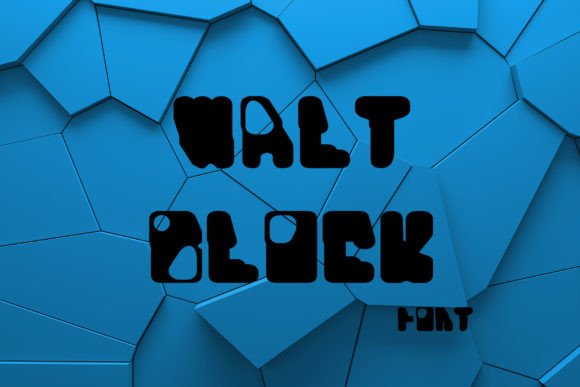
Walt Block: The Bold and Friendly Font for Modern Design
In a world where visual communication is more important than ever, the right font can make all the difference. Walt Block is a modern and cool display font that stands out for its strong, assertive presence while still maintaining a touch of friendliness. This unique combination makes it ideal for projects that require bold and daring typography without sacrificing approachability.
As design trends continue to evolve, the demand for fonts that can capture attention while remaining readable has never been higher. Walt Block meets this need by offering a versatile typeface that works well in both digital and print formats. Whether you're designing a logo, creating a website, or developing marketing materials, Walt Block provides a powerful visual identity that resonates with modern audiences.
Why Walt Block Matters in Today’s Design Landscape
The rise of digital media and social platforms has changed how people consume information. Visuals now play a central role in communication, and typography is a key component of that. With so many fonts available, it's easy to get lost in the sea of options. Walt Block offers a refreshing alternative that balances strength with warmth, making it a go-to choice for designers looking for something distinctive.
Modern consumers are more discerning than ever. They expect content that not only looks good but also feels authentic. Walt Block’s blend of confidence and approachability aligns perfectly with these expectations. It conveys authority without being intimidating, which is especially valuable in branding and advertising.
For professionals in fields like marketing, graphic design, and web development, choosing the right font can significantly impact the success of a project. Walt Block’s versatility allows it to be used across different mediums, from headlines and banners to app interfaces and signage. Its clean lines and bold structure ensure that it remains legible at various sizes, making it suitable for both large-scale displays and smaller text elements.
How Walt Block Fits Into Current Trends
Design trends often reflect broader cultural shifts, and the current emphasis on authenticity and emotional connection is no exception. Walt Block’s friendly yet assertive style mirrors this shift, offering a font that feels both confident and relatable. This makes it particularly appealing for brands that want to connect with their audience on a deeper level.
With the increasing use of mobile devices and the need for responsive design, fonts must adapt to different screen sizes and resolutions. Walt Block is optimized for digital environments, ensuring that it maintains clarity and impact across all platforms. This adaptability is crucial in today’s fast-paced, multi-device world.
Moreover, the trend toward minimalism in design has led to a preference for clean, uncluttered visuals. Walt Block supports this aesthetic with its straightforward, no-nonsense look. It doesn’t rely on excessive embellishments or complexity, allowing the message to take center stage.
The Evolution of Bold Typography
Bold typography has long been a staple in design, but its relevance has grown in recent years. As businesses compete for attention in an increasingly crowded marketplace, the need for eye-catching visuals has become more urgent. Fonts like Walt Block offer a solution by providing a strong visual statement that commands attention without overwhelming the viewer.
This evolution is driven by changes in user behavior and expectations. Audiences are now accustomed to fast-paced, visually rich content, and they respond better to designs that are clear and impactful. Walt Block’s ability to deliver this kind of visual punch makes it a valuable tool for designers aiming to create memorable experiences.
Additionally, the growing importance of brand identity has made typography an essential element of business strategy. A well-chosen font can reinforce a brand’s message and values, helping to build trust and recognition. Walt Block’s balance of strength and friendliness makes it an excellent choice for brands that want to project confidence while remaining approachable.
Practical Applications of Walt Block
One of the most practical uses of Walt Block is in branding and logos. Its bold, structured form gives it a professional edge, while its subtle curves add a sense of warmth. This makes it ideal for businesses that want to convey both authority and accessibility. Whether it's a tech startup, a creative agency, or a lifestyle brand, Walt Block can help establish a strong visual identity.
In web design, Walt Block can be used for headings, call-to-action buttons, and other prominent elements. Its readability ensures that it remains effective even when used in small sizes or on mobile devices. For designers, this means they can create visually striking layouts without compromising on usability.
Experimentation is key when working with display fonts. Try different weights, sizes, and colors to find the best fit for your project. Walt Block’s flexibility allows it to work in a variety of settings, from minimalist designs to more elaborate compositions.
Finally, always test the font in real-world scenarios. View it on different devices, under varying lighting conditions, and in different sizes to ensure that it performs as expected. This step is crucial for maintaining consistency and effectiveness across all platforms.